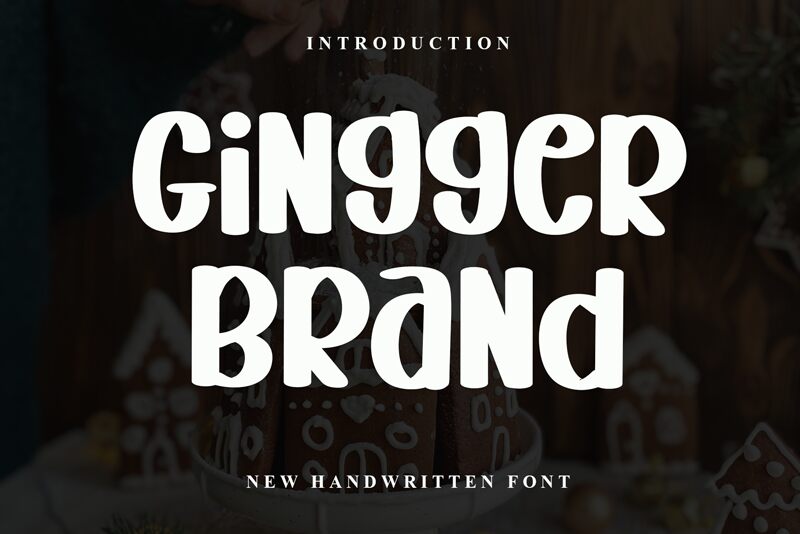
Gingger Brand
Gingger Brand font by Inermedia Studio is a free brush font that feels bold, bouncy, and hand-painted with a chunky marker. The letters have a soft, rounded silhouette and tight rhythm that makes words look like friendly, squishy blocks of ink. It’s playful without being messy, giving you that crafted, human touch while still staying legible and consistent across a full wordmark or headline.
Using Gingger Brand, this free font shines on kids’ products, snack and bakery packaging, handmade shop logos, bold stickers, YouTube covers, and cheerful social media graphics. Its compact, upright forms hold together nicely at large sizes, so your brand name reads clearly even on small labels. For longer text or taglines, pair Gingger Brand with a simple geometric sans typeface to keep the focus on its fun, brushy character.